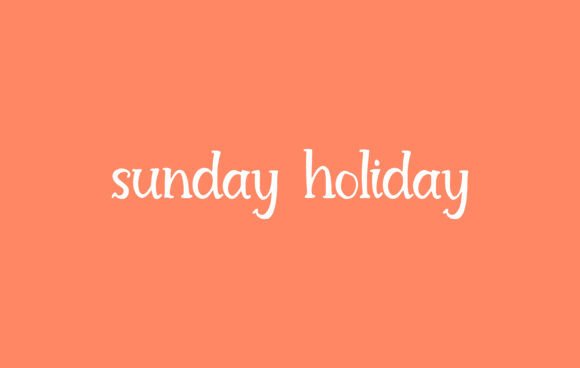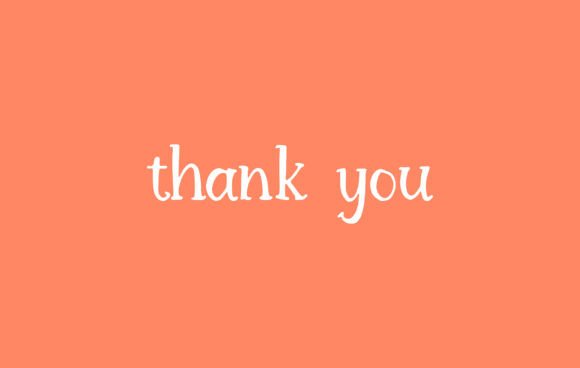
Introduction to Outlaw Grooves Font
Outlaw Grooves font is an authentic handwritten font with a romantic touch.
Key Features of Outlaw Grooves Font
Why Choose Outlaw Grooves Font?
Outlaw Grooves Font offers exceptional quality and versatility, making it a valuable addition to your design toolkit. Whether you’re creating for personal projects or commercial use, Outlaw Grooves Font delivers professional results.